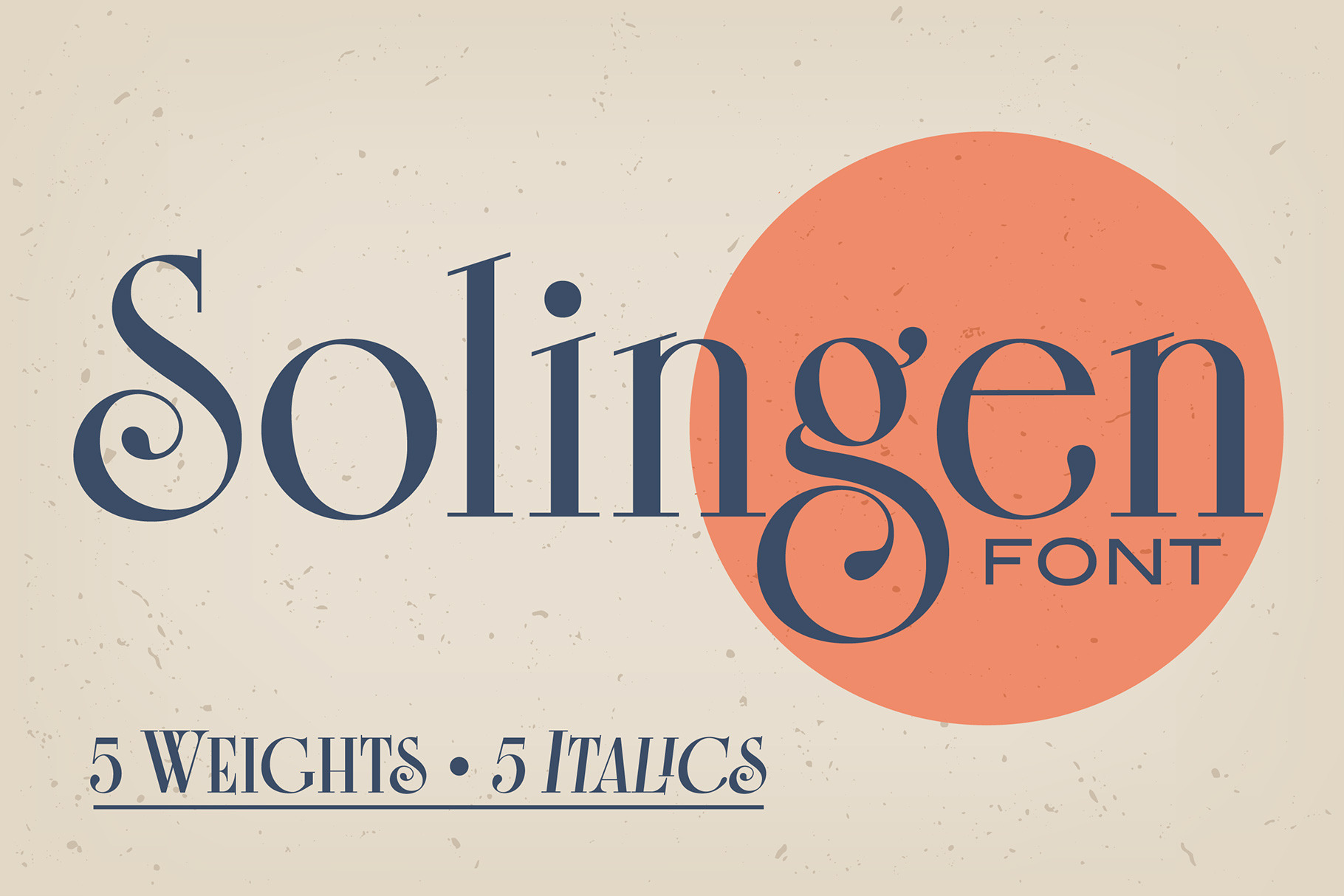
Solingen Font Family
Solingen is an elegant serif font family ideal for high-end branding, boutique logos, apparel, jewelry, and much more. The capitals character set contains many two-character alternates or ligatures that will bring any logo to life. The letters have a graceful flow and a classic elegance, with plenty of visual interest added by the unique alternate characters.